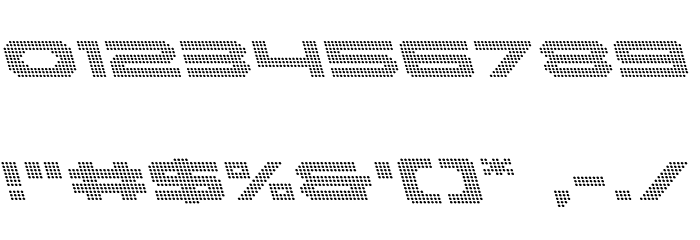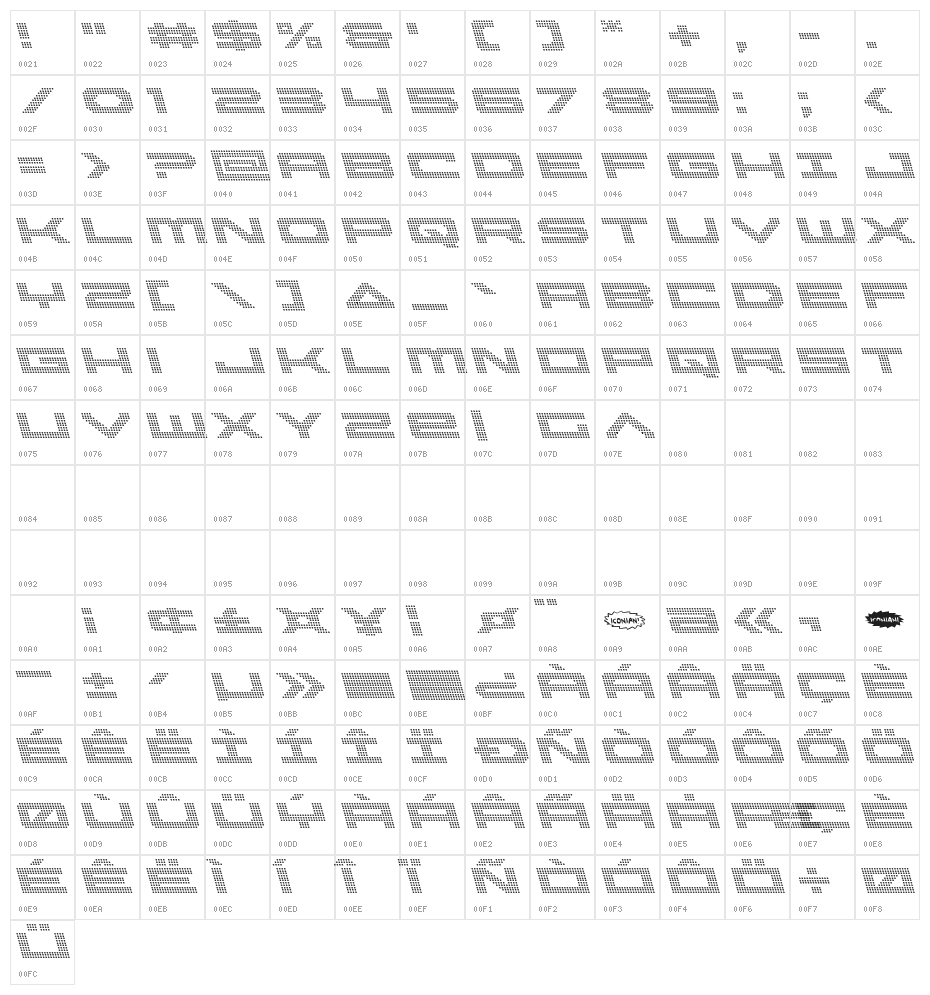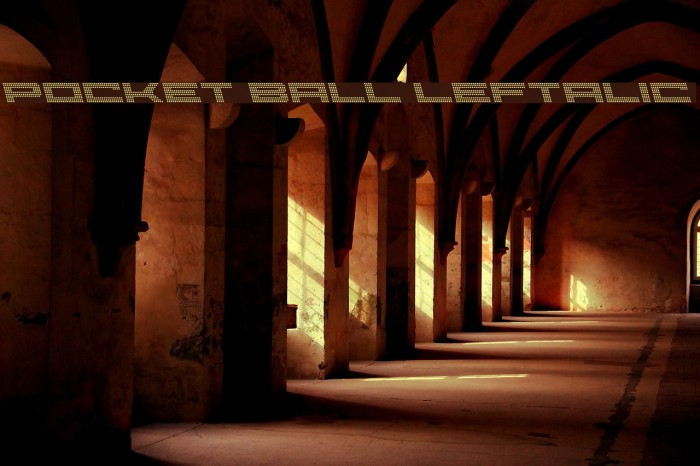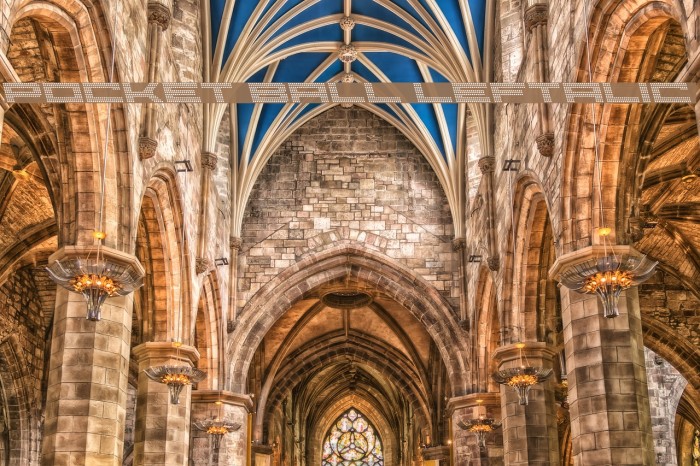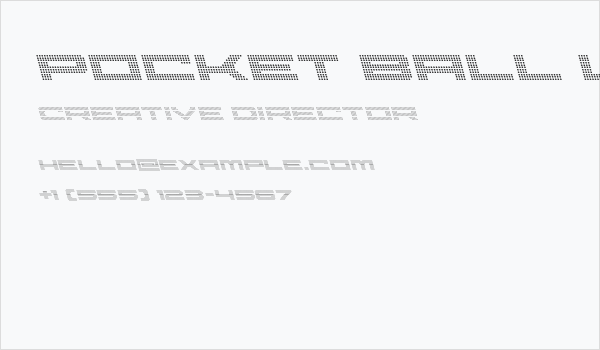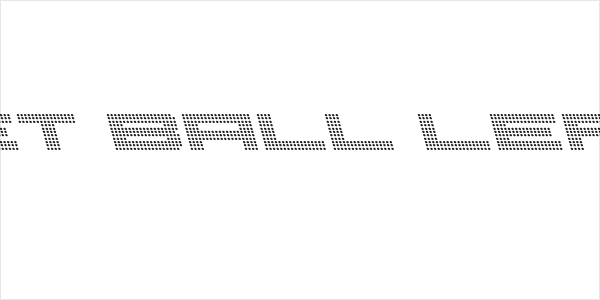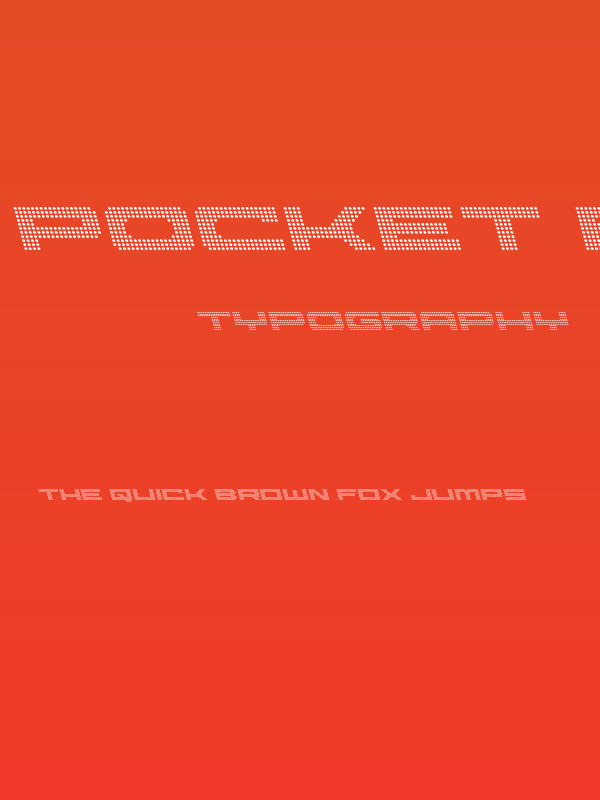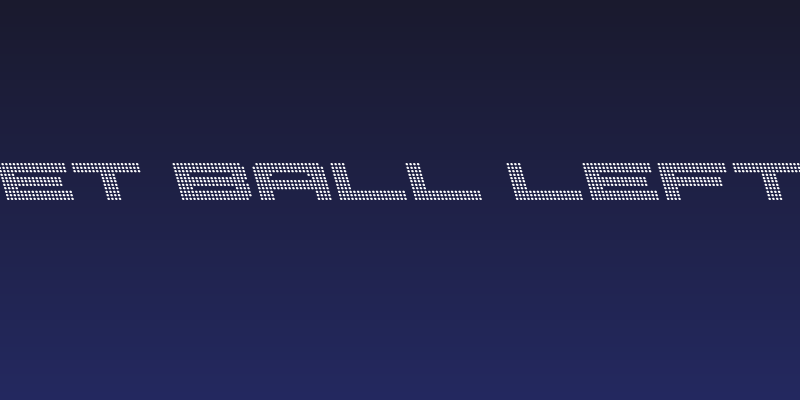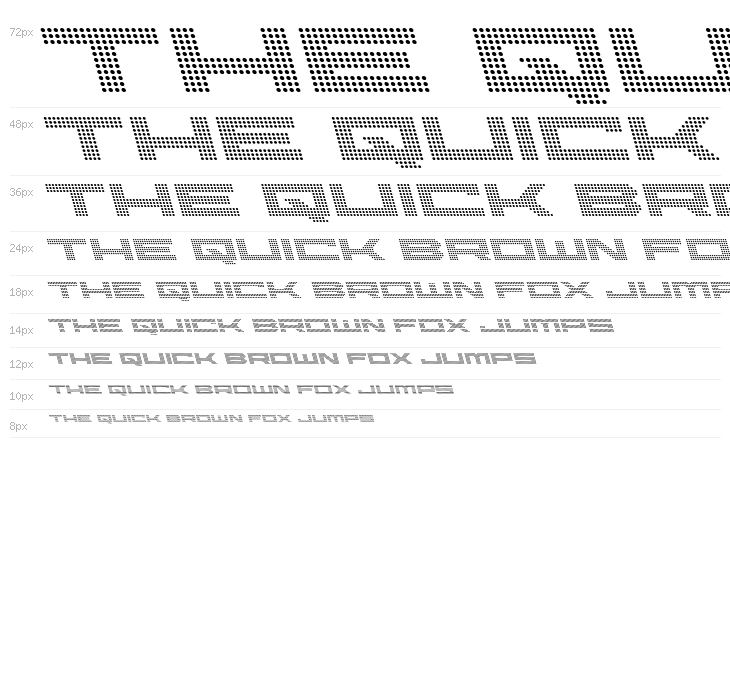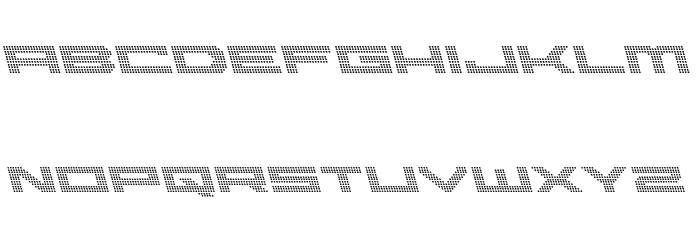
Pocket Ball Leftalic Font
Pocket Ball Leftalic Description
This font features a unique dotted pattern that creates each character, giving it a digital and futuristic appearance. The letters are constructed with small, evenly spaced dots that form the outlines of each character. This style is consistent across uppercase and lowercase letters, numbers, and special characters. The font has a uniform width and maintains a consistent height, providing a cohesive look. Its geometric and structured design makes it suitable for modern and tech-oriented projects. The dotted effect adds a playful yet sophisticated touch, making it stand out in digital displays or creative designs.
| Proposed Projects | Ideal for digital displays, tech branding, futuristic designs, and creative posters. |